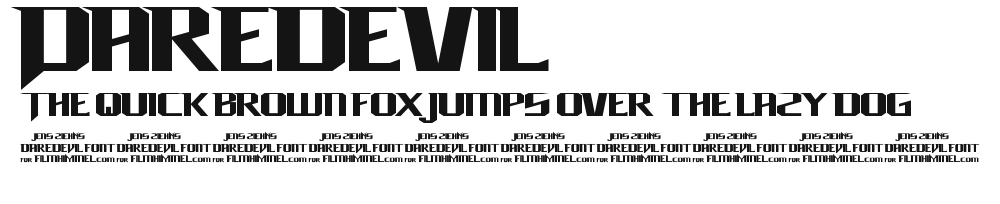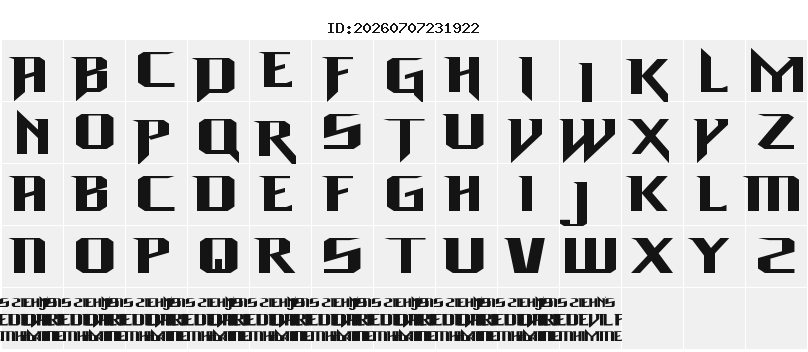
Daredevil Preview
• Font Name: Daredevil
• Font ID: Daredevil
• Full Font Name: Daredevil
• Character Count: 53
About Daredevil.ttf
Daredevil.ttf is a modern, elegant sans-serif font designed for ultimate readability and visual harmony. Perfect for branding, headlines, web design, and print materials.